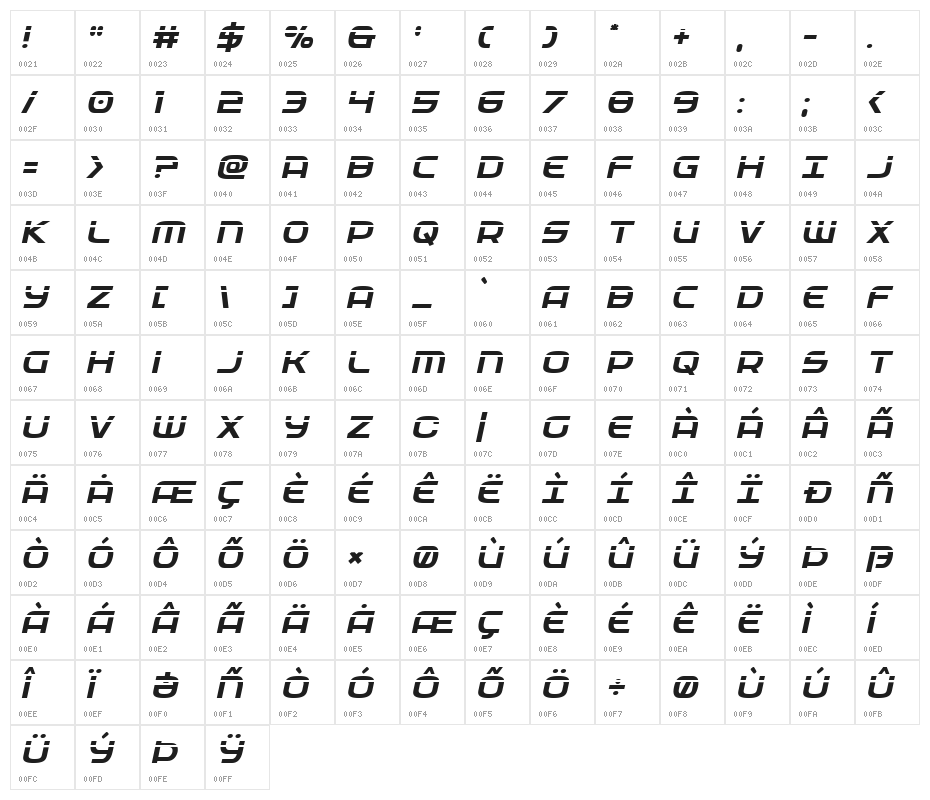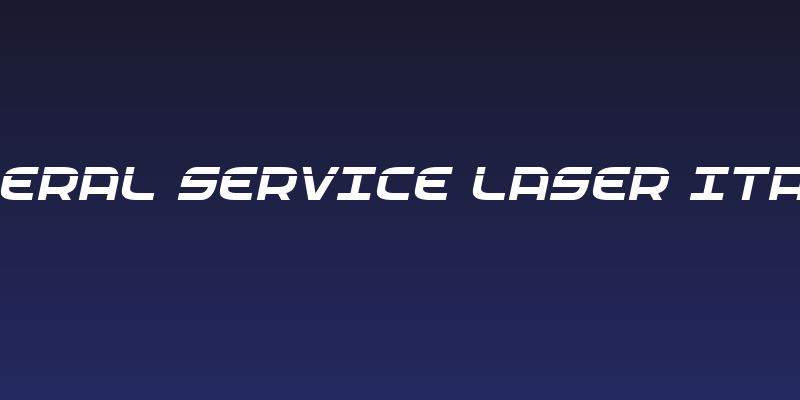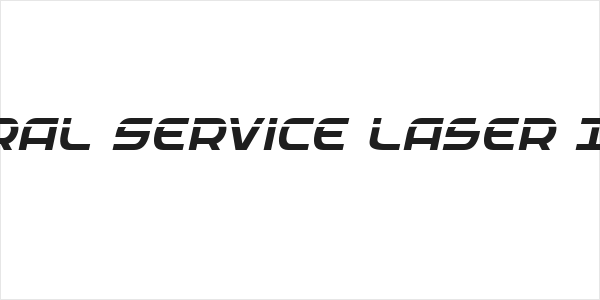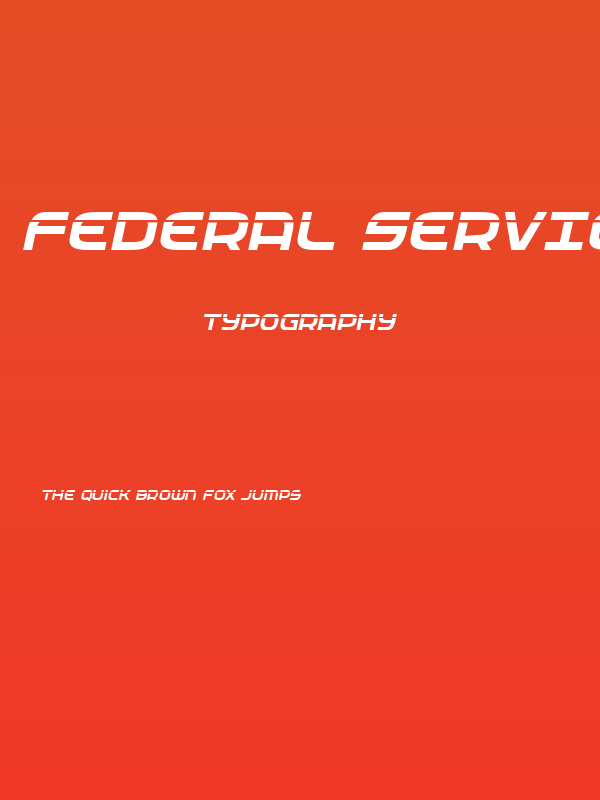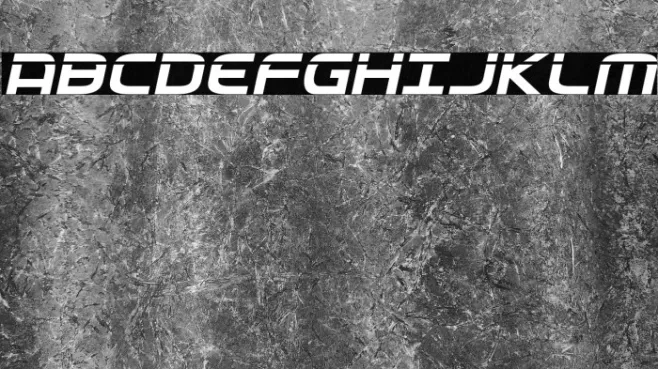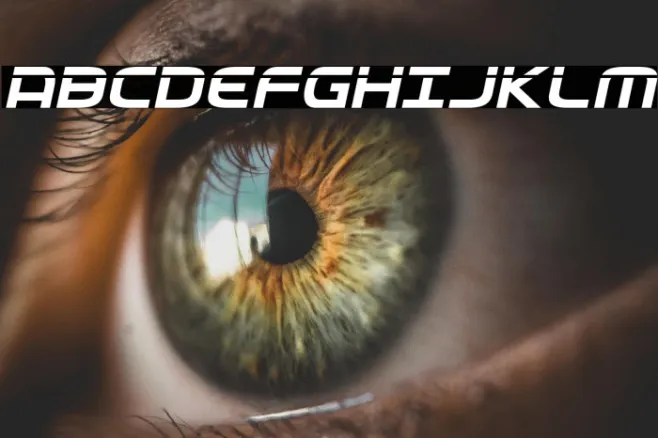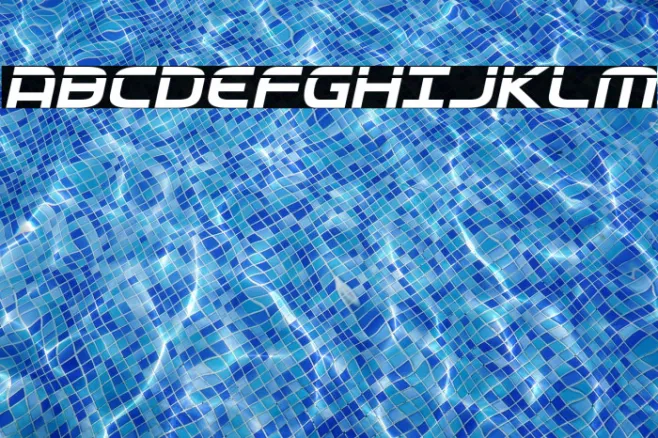
Federal Service Laser Italic Font
Federal Service Laser Italic Description
This font exhibits a futuristic and dynamic style with a distinct italic slant, giving it a sense of motion and speed. The characters are bold and angular, featuring sharp edges and clean lines that contribute to its modern aesthetic. The uppercase and lowercase letters maintain a consistent design, with the uppercase being slightly more pronounced. Numbers and special characters follow the same angular and sleek design, ensuring uniformity across all glyphs. The font's design is suitable for projects that require a contemporary and energetic feel, making it ideal for technology-related themes or modern branding.